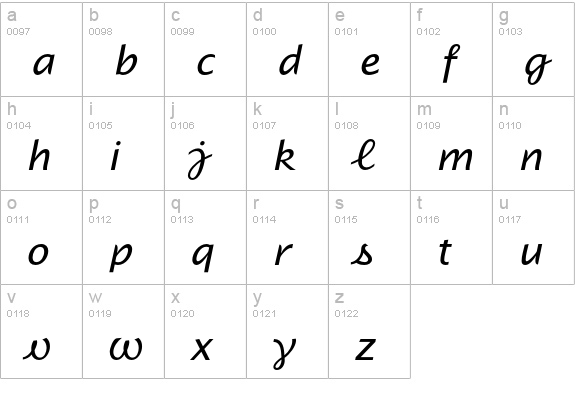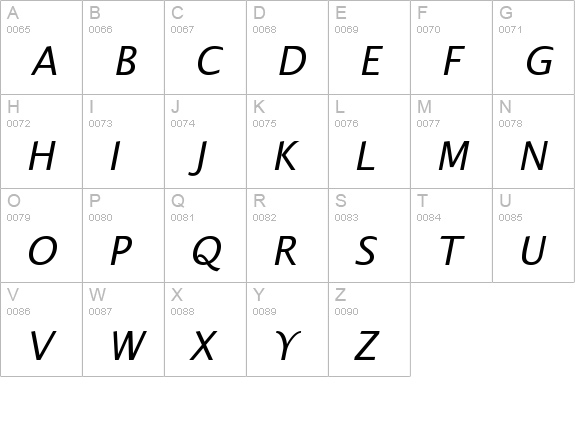
Alphabet4-Osf font is a versatile and stylish typeface that will add a touch of elegance to any design project. This font features unique letterforms with a modern twist, making it perfect for both print and digital applications. The sleek and sophisticated design of Alphabet4-Osf font makes it ideal for branding, advertising, and editorial projects. Best of all, Alphabet4-Osf font is available for free download at FontsMarket.com. This means you can easily access this high-quality font without any cost, allowing you to enhance your projects with a professional and polished look. Don't miss out on the opportunity to elevate your designs with the sleek and modern Alphabet4-Osf font, available for free at FontsMarket.com!